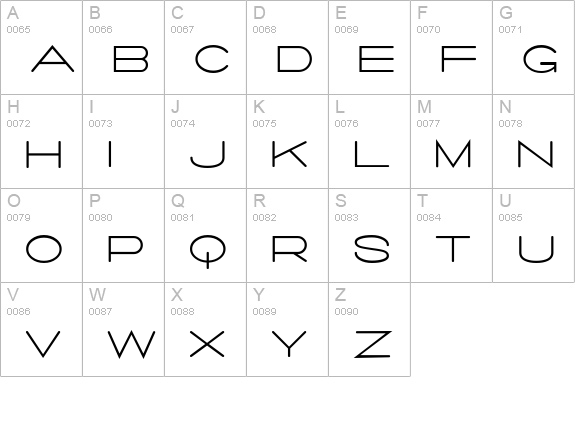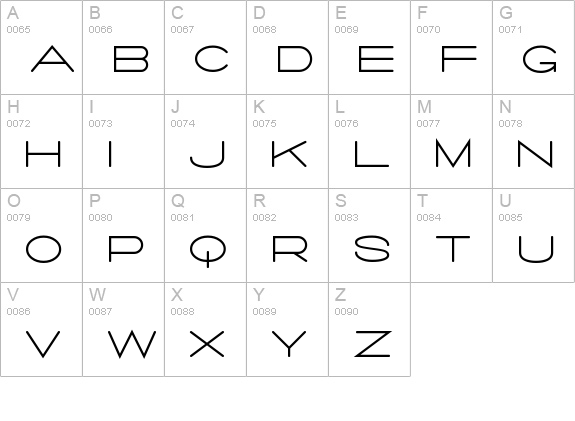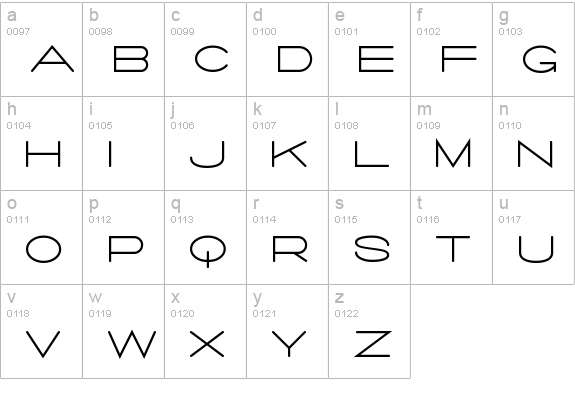
Salaryman Font Details
Introducing Salaryman font, a sleek and modern typeface designed specifically for the professional world. This font encapsulates the essence of the corporate world, with its clean lines and sharp edges, making it the perfect choice for any salaryman or businesswoman looking to add a touch of sophistication to their written communications. With its versatile nature, Salaryman font can be used for a wide range of applications, from business cards and presentations to marketing materials and website designs. Its legibility and readability ensure that your message is conveyed effectively, while its stylish aesthetic adds a touch of elegance and professionalism. But what truly sets Salaryman font apart is that it is absolutely free. That's right, this incredible typeface can be freely downloaded at FontsMarket.com, allowing you to enhance your professional projects without any additional cost. Now, you can elevate your designs and stand out from the crowd without breaking the bank. Whether you're a seasoned salaryman or a budding entrepreneur, Salaryman font is the ideal tool to help you make a lasting impression. Its timeless appeal and contemporary design make it a must-have for anyone looking to make their mark in the business world. So why wait? Head over to FontsMarket.com and download Salaryman font today. With its exceptional quality and free availability, there's no reason not to add this font to your collection. Elevate your professional image and captivate your audience with the impeccable style of Salaryman font.